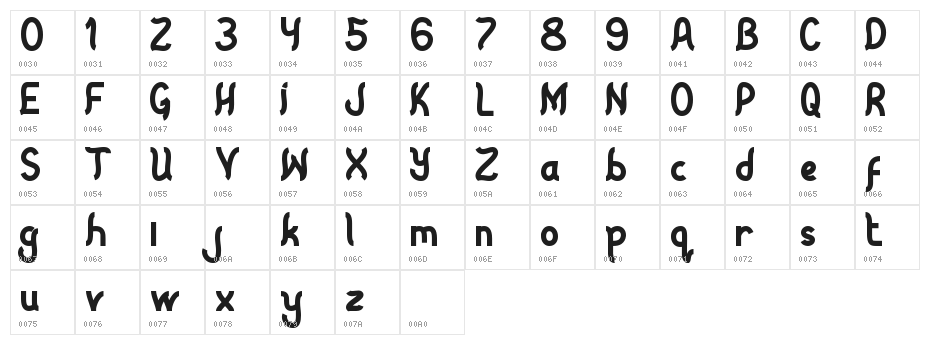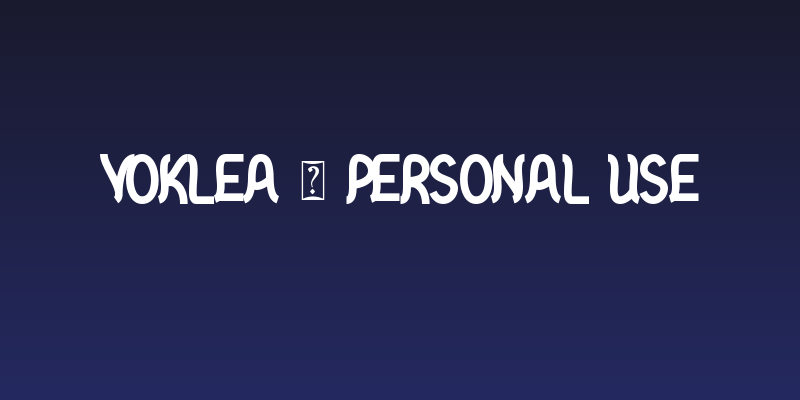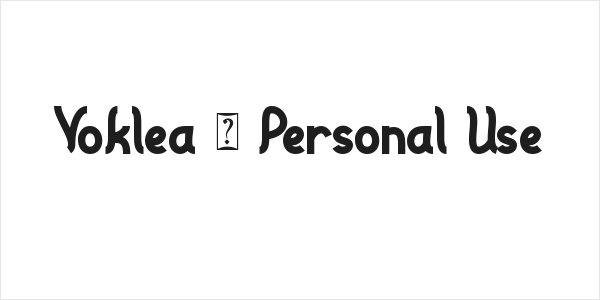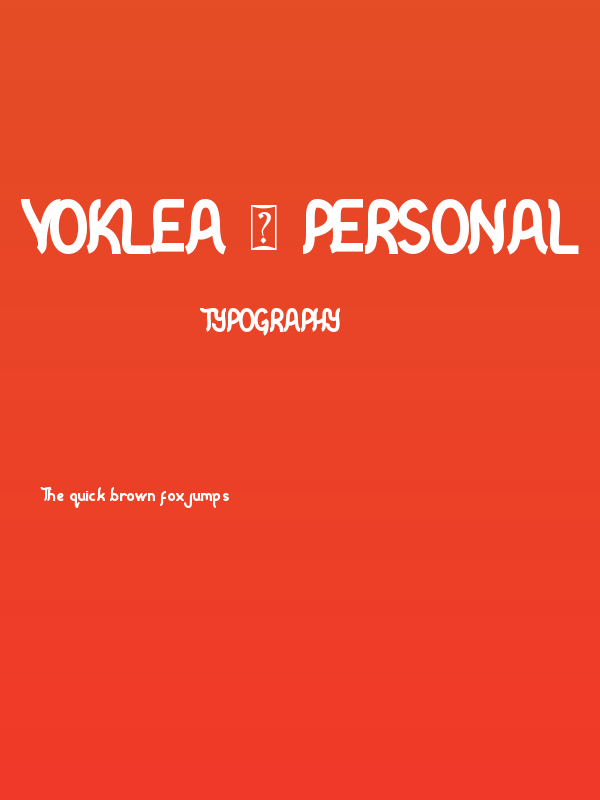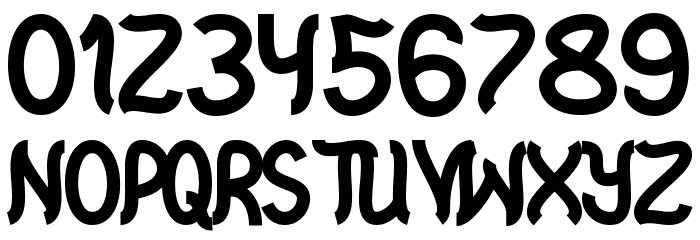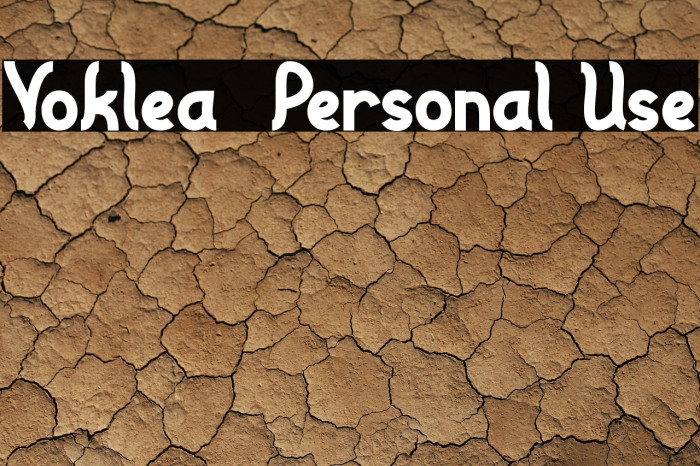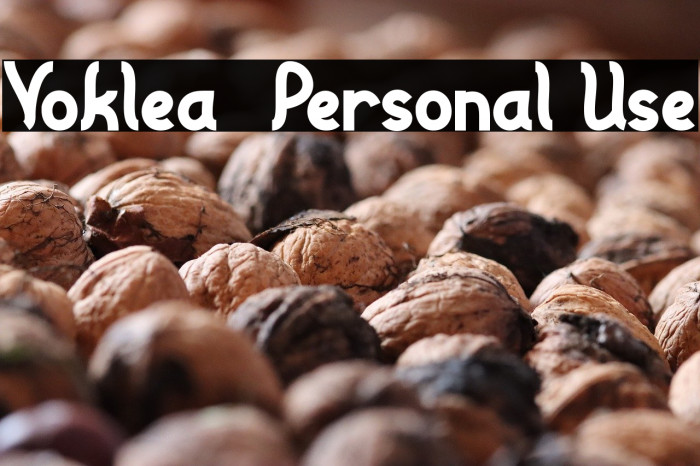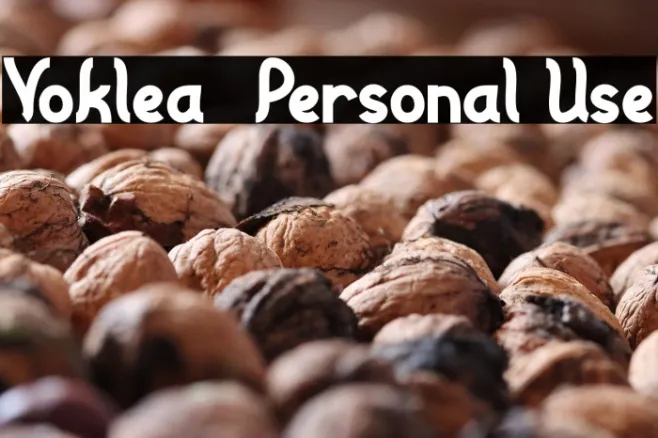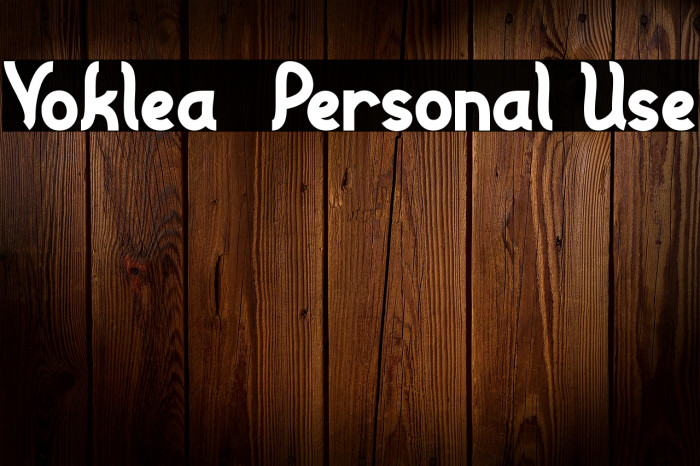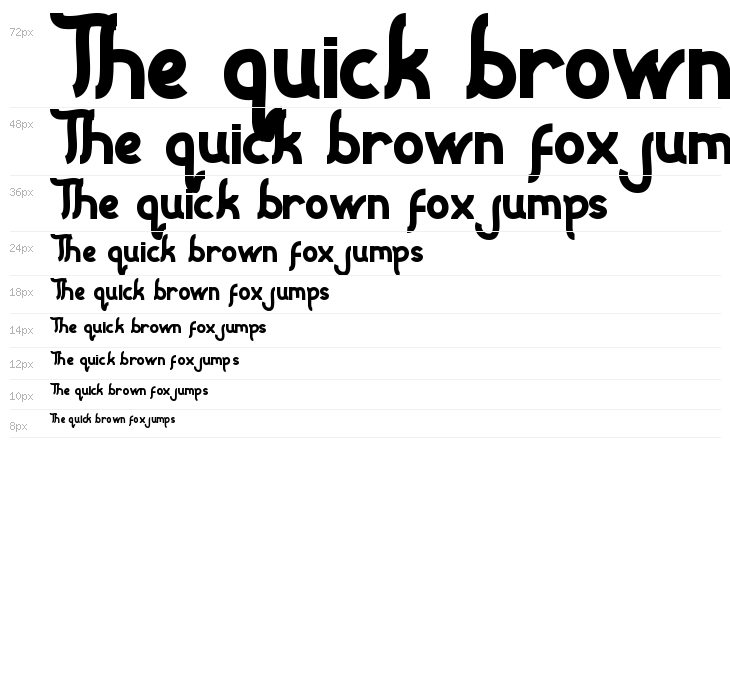
Voklea - Personal Use Font
Voklea - Personal Use Description
This font features a bold and playful style with a hand-drawn appearance. The characters are thick and rounded, giving them a friendly and approachable look. The uppercase and lowercase letters maintain a consistent style, with a slight slant that adds a dynamic feel. The numbers and special characters are equally bold, ensuring readability and consistency across all elements. The overall design is unique and eye-catching, making it suitable for creative projects that require a touch of personality.
| Overall Style | Playful, Creative |
| Proposed Projects | Ideal for children's books, playful branding, posters, and creative invitations. |